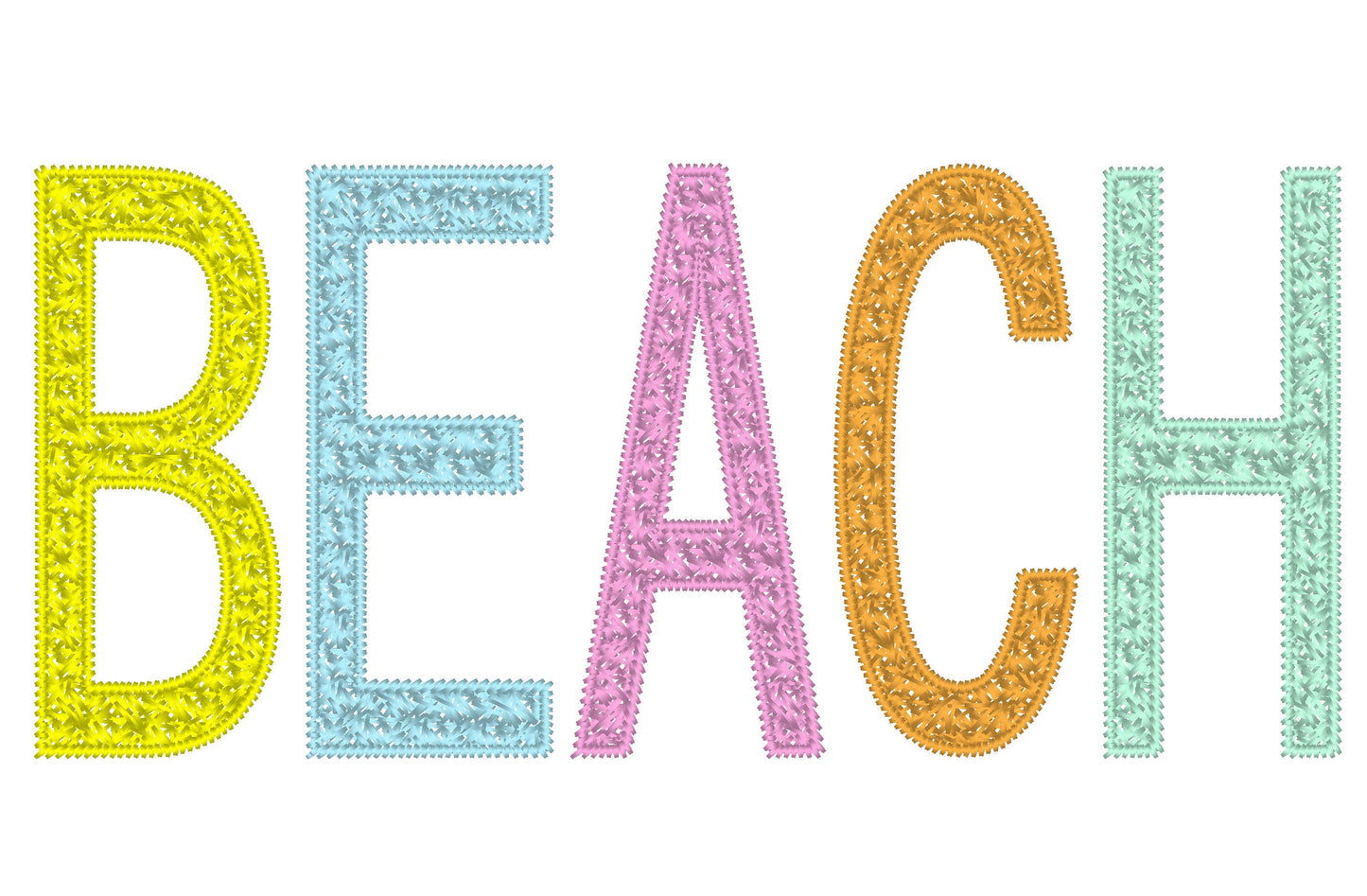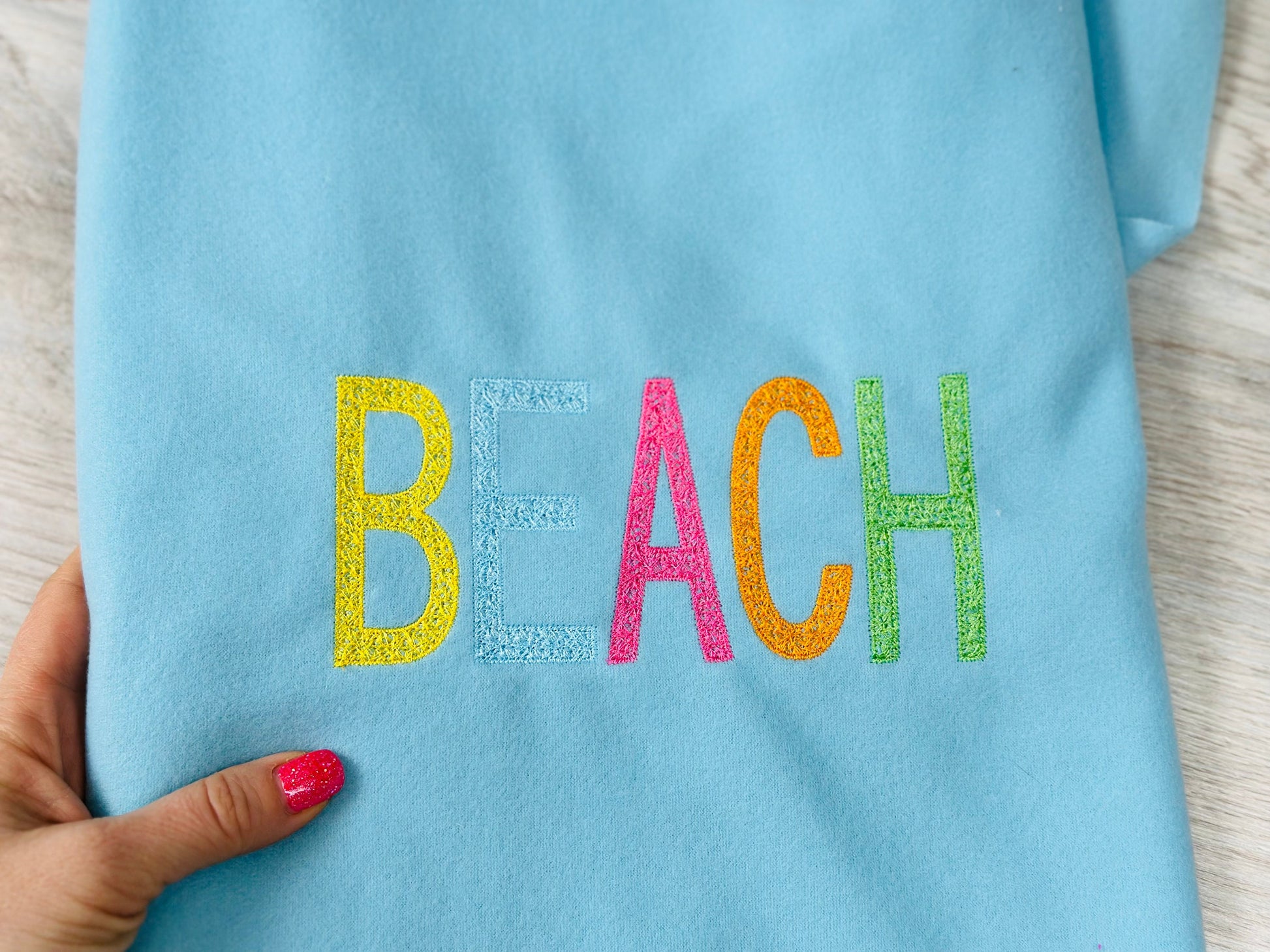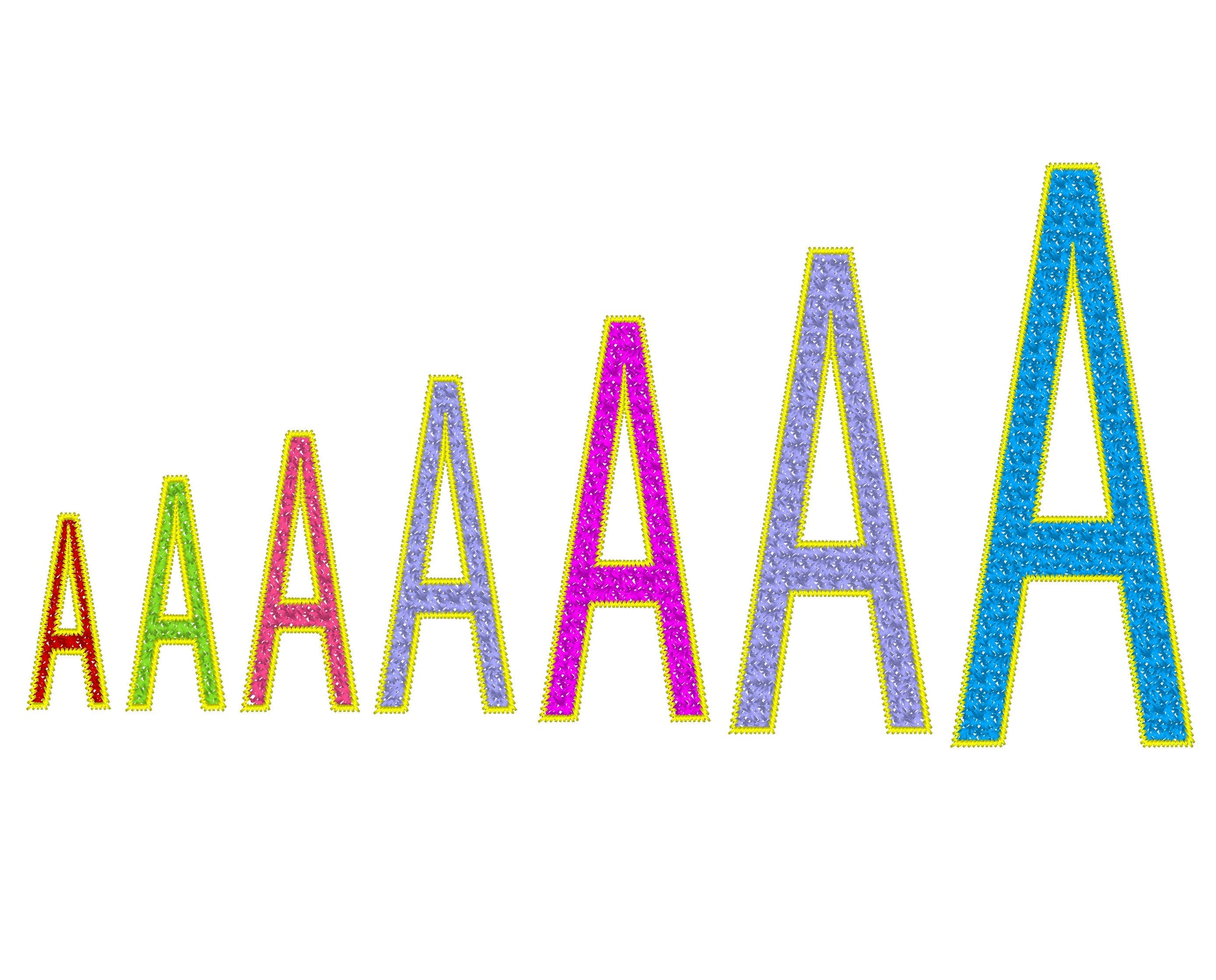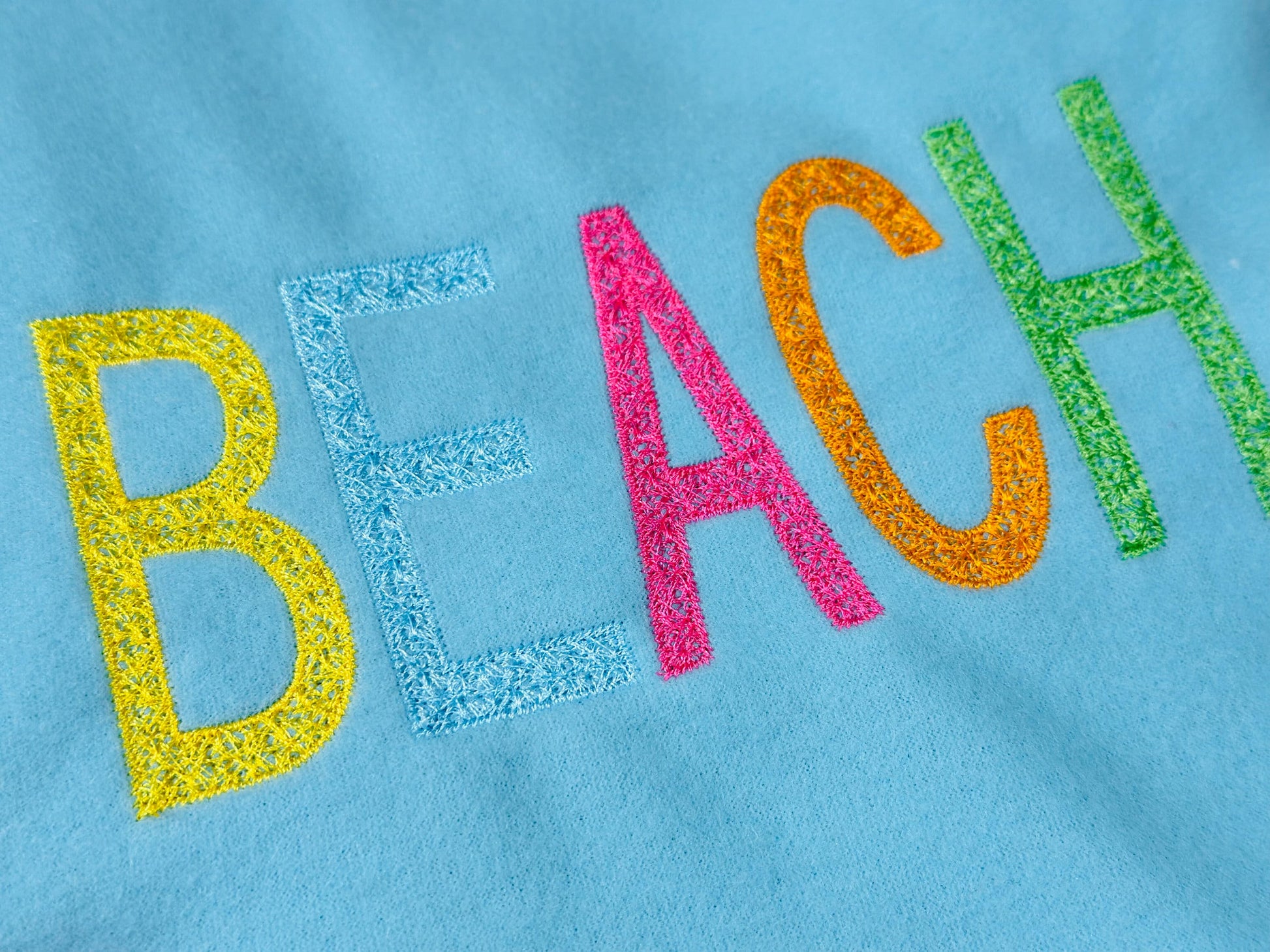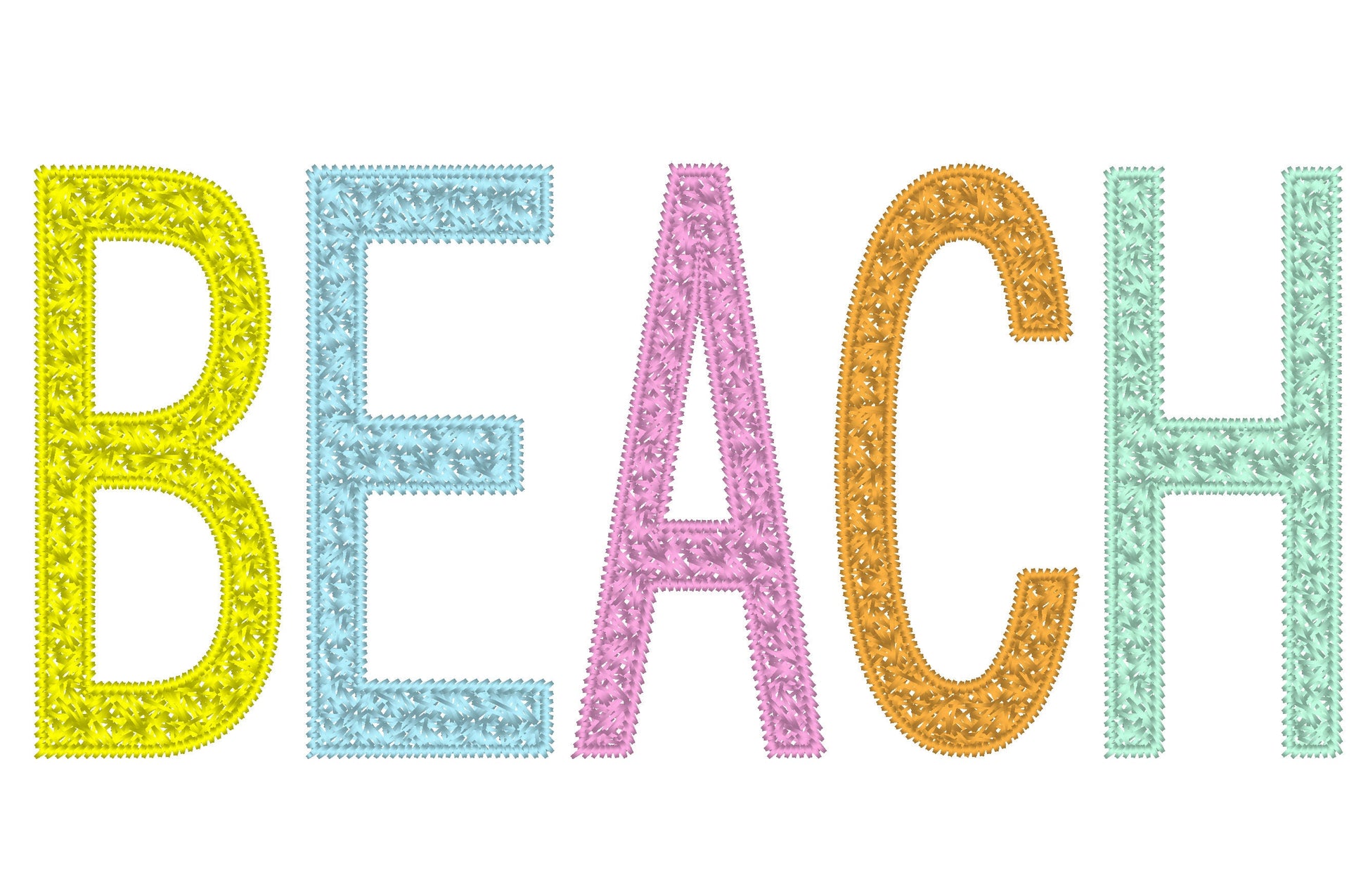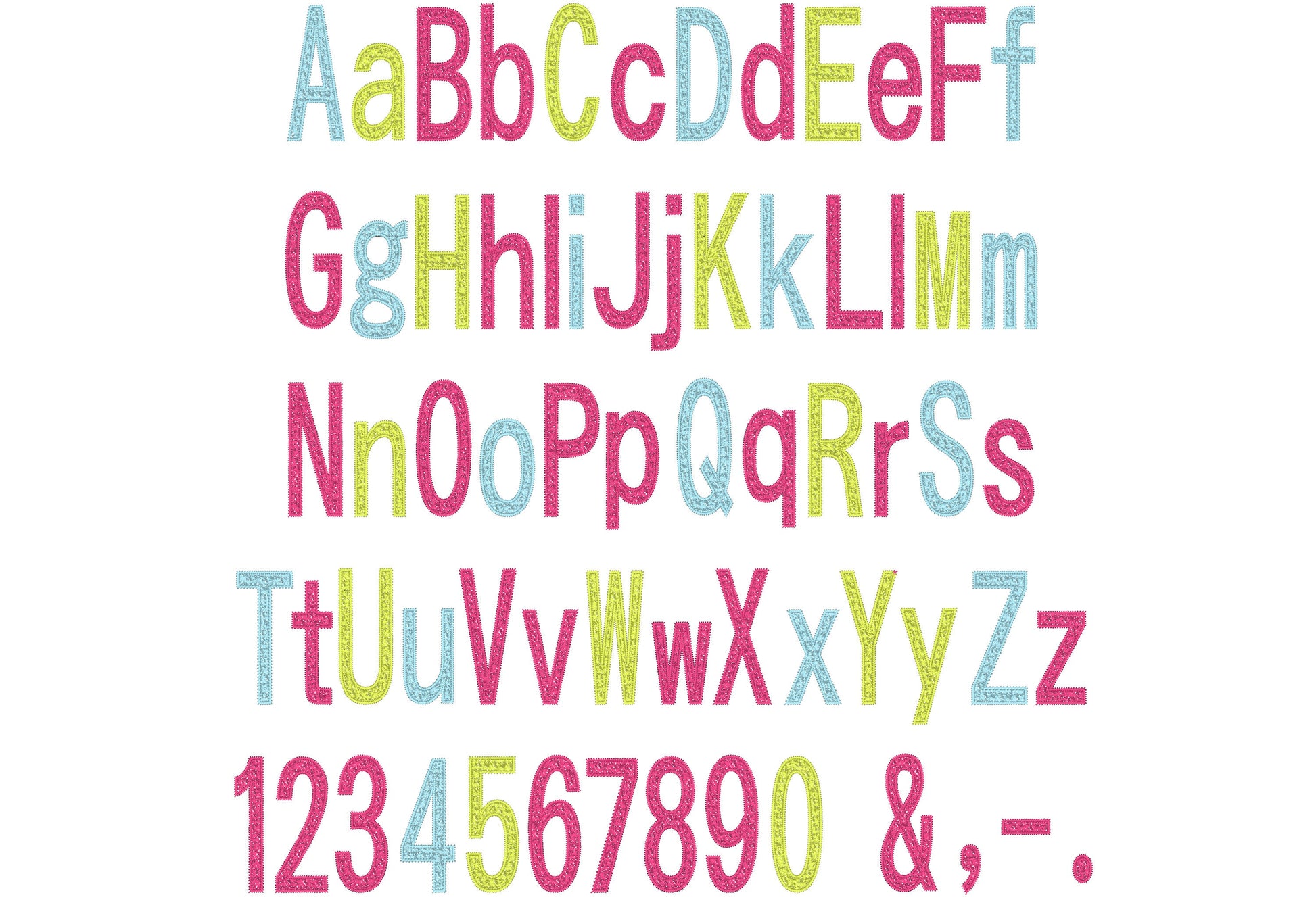
Narrow Faux Chenille Block Font
Or click to open the linkA narrow block font with a faux chenille look. Great for bath towels, team shirts, sweatshirts and names.
Uppercase and lowercase letters, numbers 0 to 9 and punctuation, in seven heights: 1.7, 2, 2.5, 3, 3.6, 4.3 and 5 inches.
- Narrow faux chenille block font
- Uppercase and lowercase letters, numbers 0-9, punctuation
- 7 sizes, 1.7 to 5 in